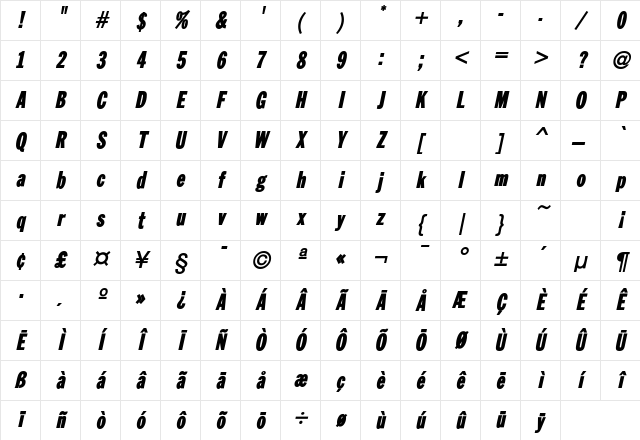
ZenherSSK BoldItalic
Design Context for ZenherSSK
ZenherSSK is a composed and adaptable typeface that performs quietly and consistently across a wide range of design contexts. The slanted form adds forward momentum and visual energy. Its bold stroke weight gives it real presence on the page.
Pro Tip: Use ZenherSSK for emphasis, pull quotes, and subheadings where its slanted energy can add rhythm to the layout.